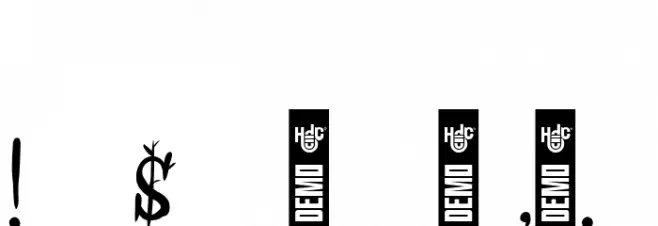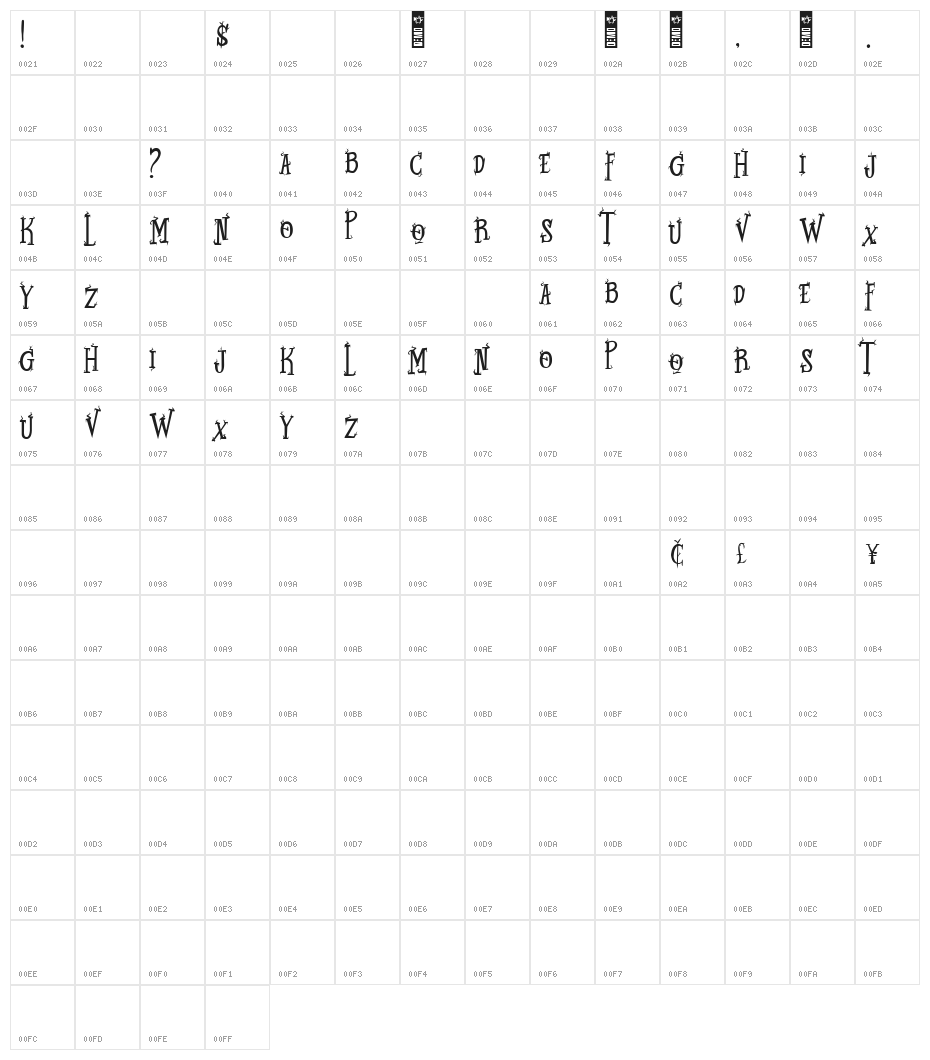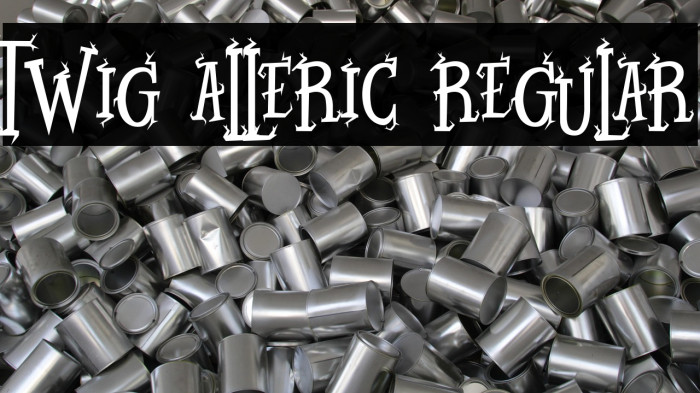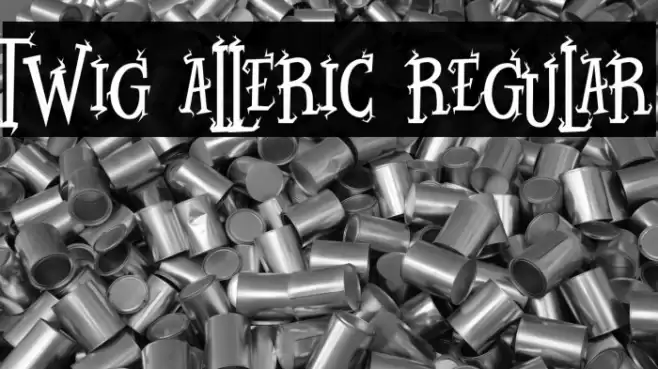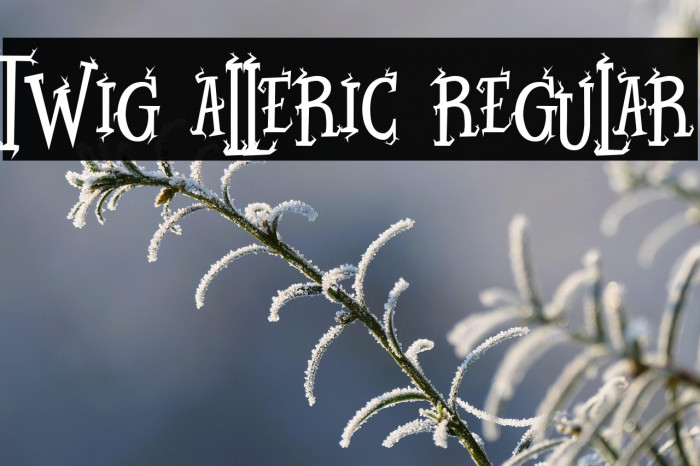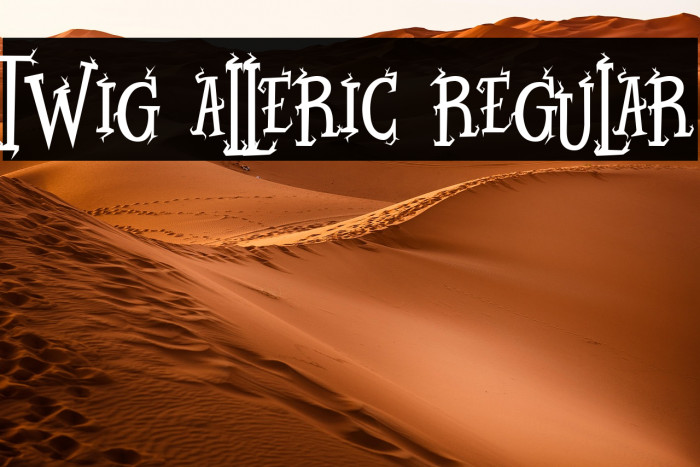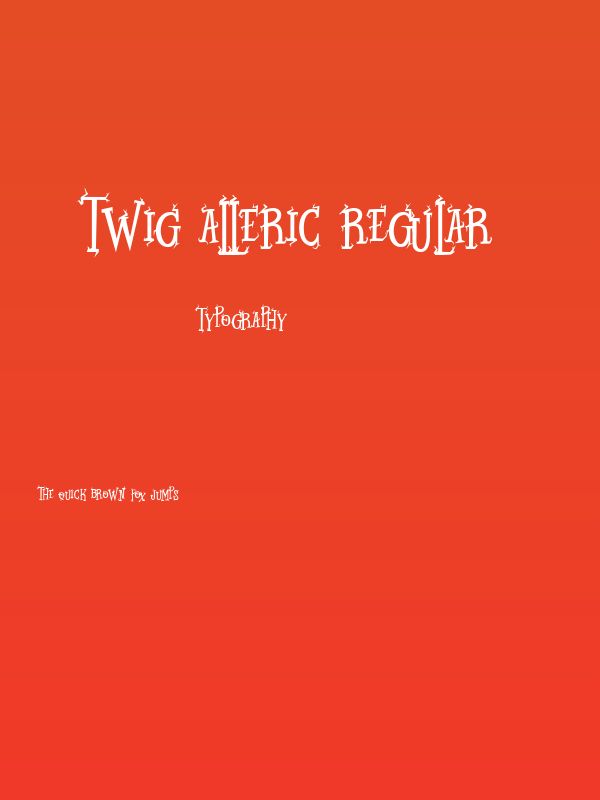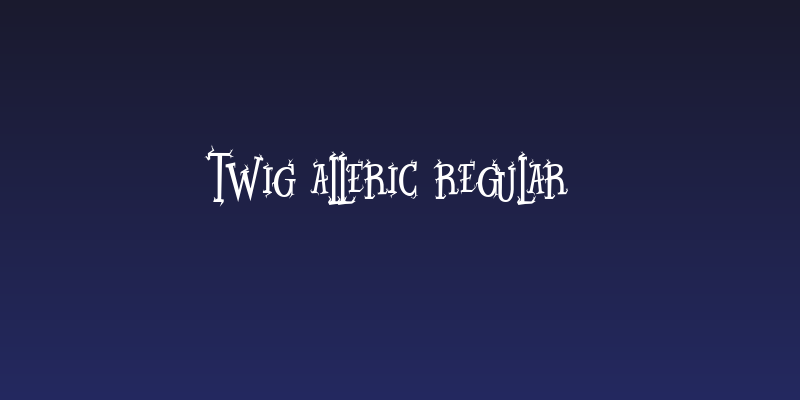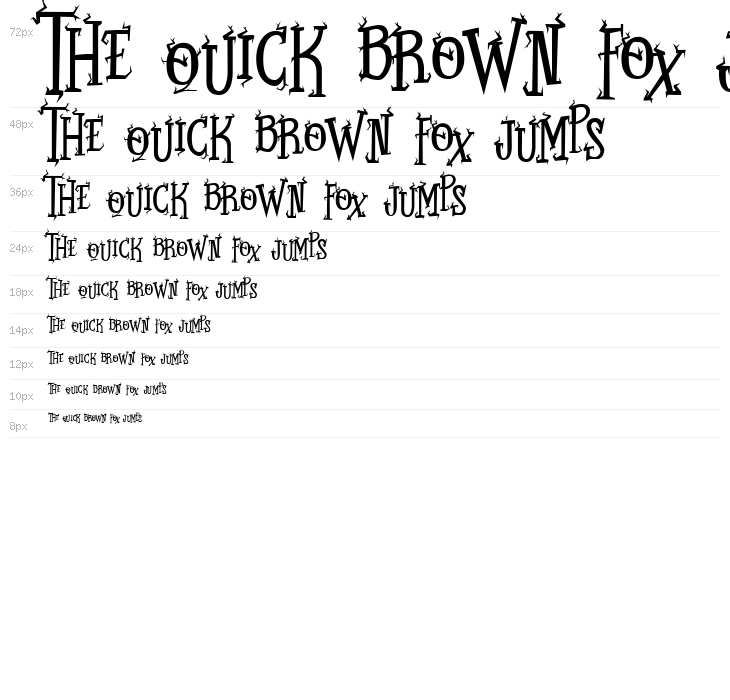
Twig Alleric Regular Font
Twig Alleric Regular Description
This font features a unique and whimsical design with thorn-like embellishments extending from the characters, giving it a playful yet edgy appearance. The uppercase and lowercase letters maintain a consistent style, with sharp angles and pointed serifs that create a dynamic visual effect. The numbers and special characters follow the same theme, ensuring a cohesive look across all text elements. The overall aesthetic is both decorative and distinctive, making it ideal for projects that require a bold and artistic touch.
| Proposed Projects | Ideal for Halloween-themed designs, fantasy book covers, edgy posters, and unique branding projects. |